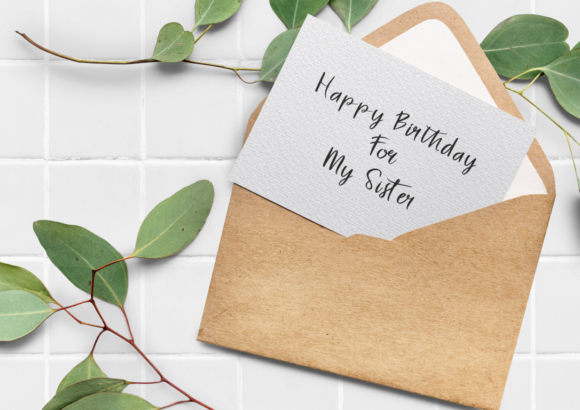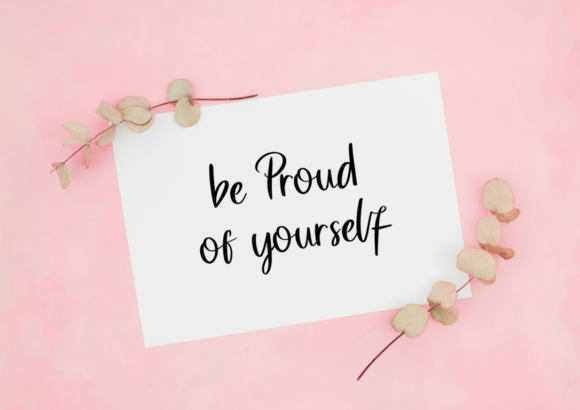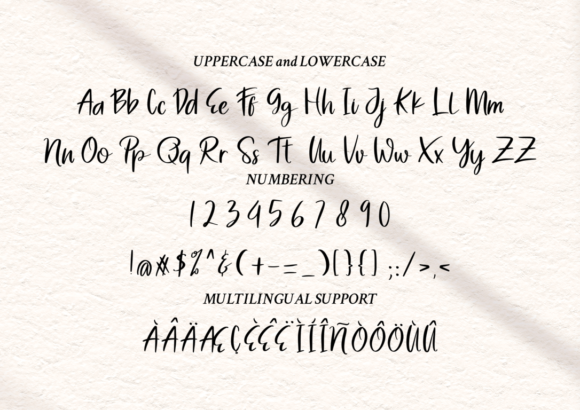
Introduction to Both Bottle Font
Both Bottle is a lovely and delicate script font that exudes elegance and class.
This font was particularly crafted for those who need a beautiful and refreshing look to their designs .
Key Features of Both Bottle Font
Why Choose Both Bottle Font?
Both Bottle Font offers exceptional quality and versatility, making it a valuable addition to your design toolkit. Whether you’re creating for personal projects or commercial use, Both Bottle Font delivers professional results.